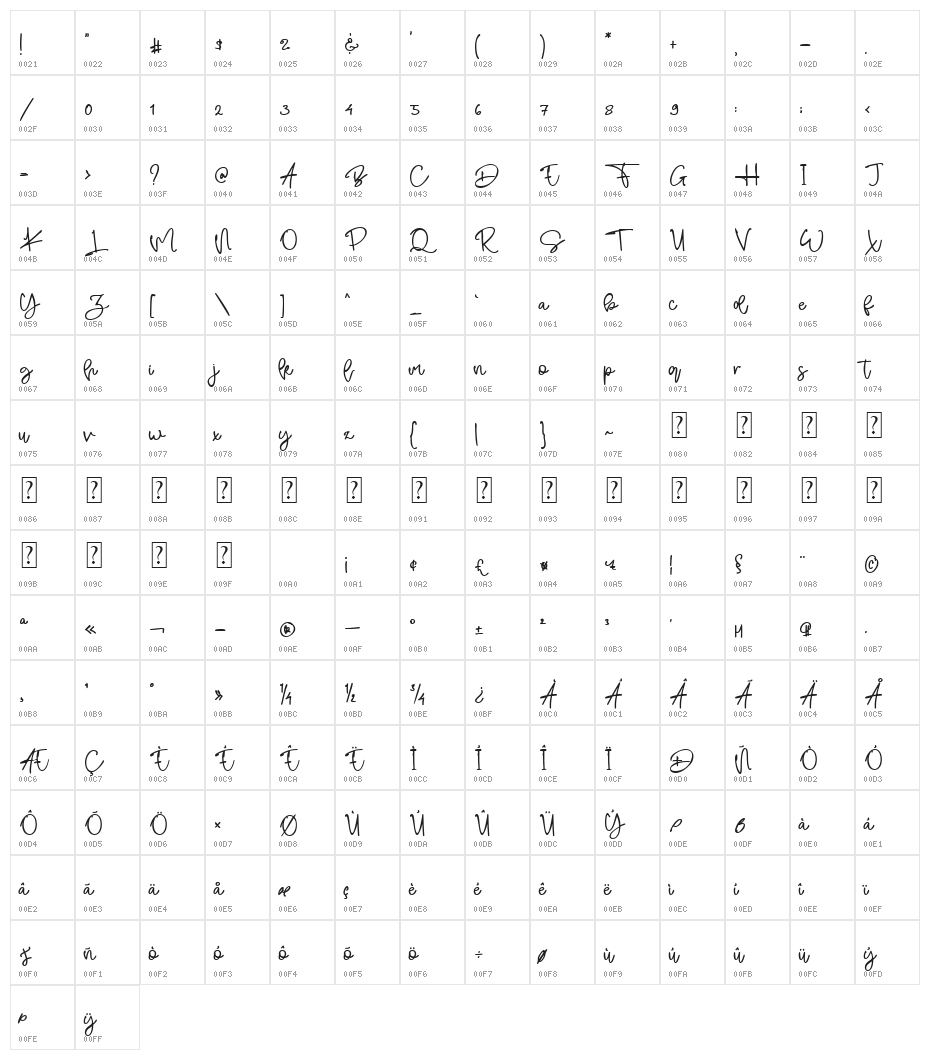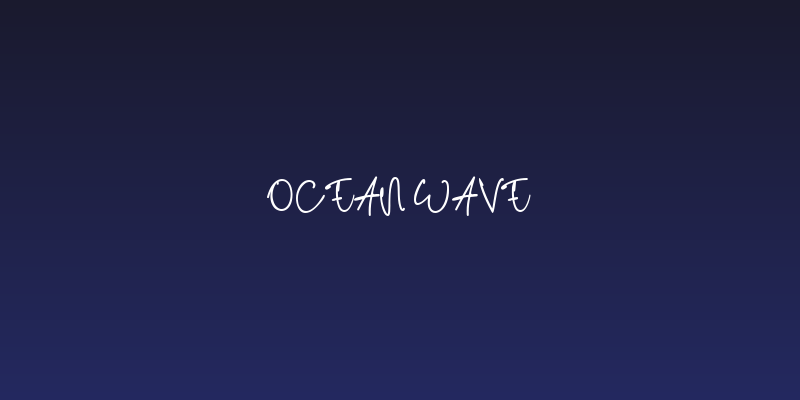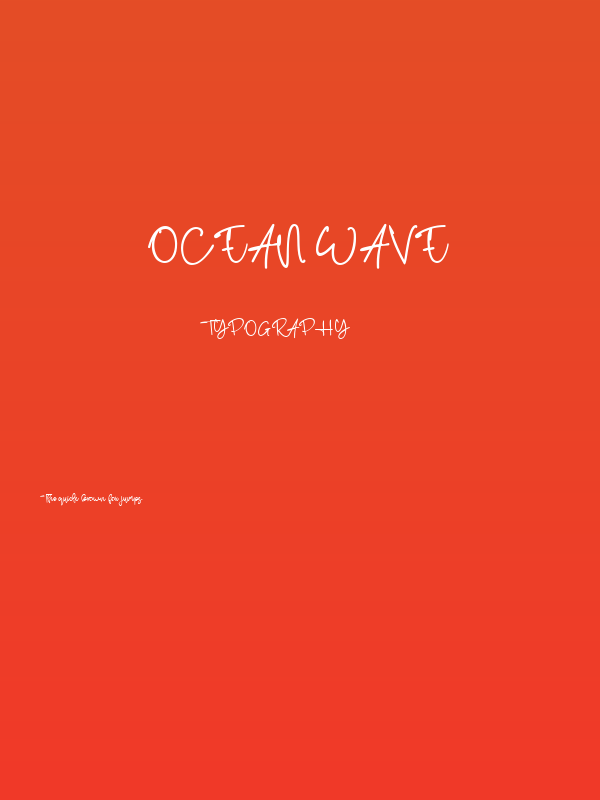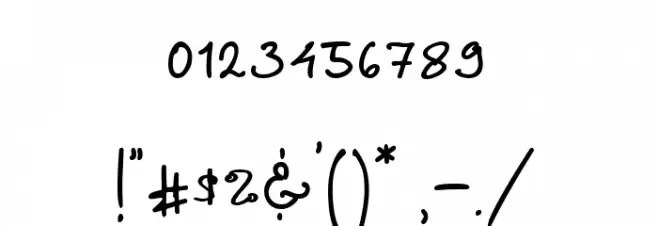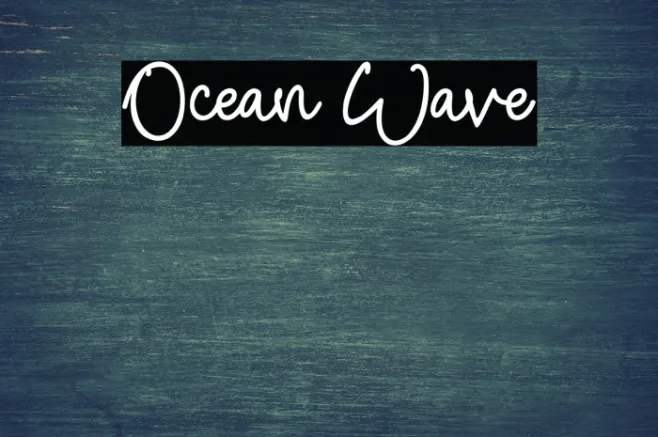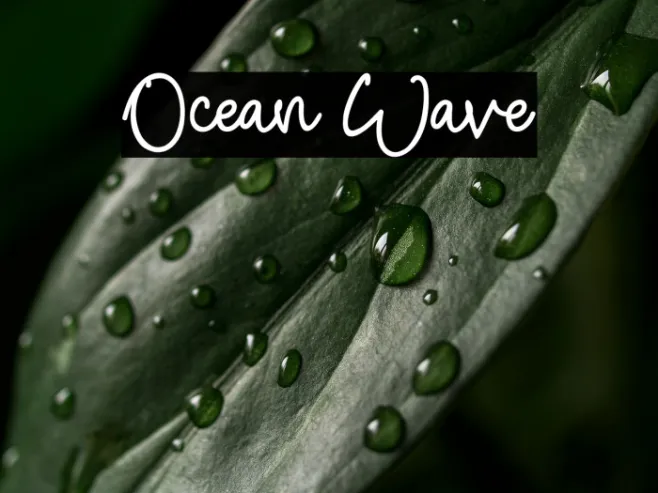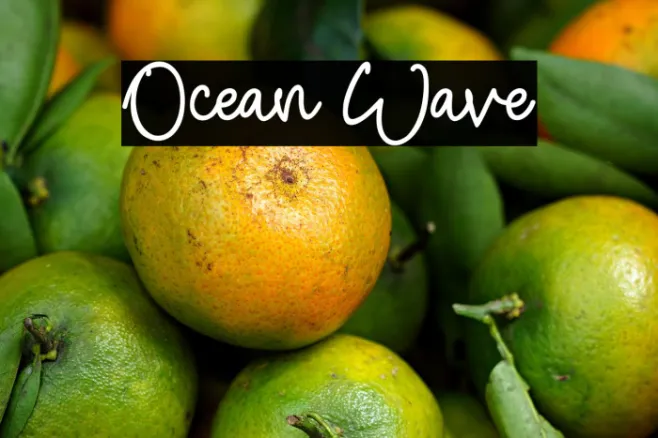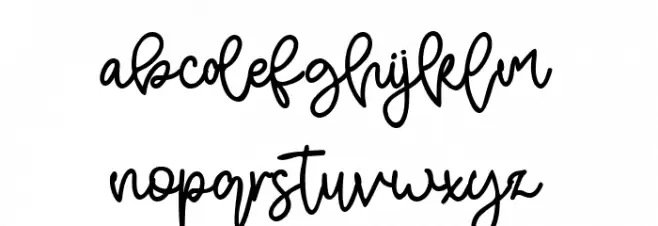
Ocean Wave Font
Ocean Wave Description
This font exudes a playful and dynamic energy, characterized by its fluid, handwritten style. The letters are crafted with a sense of movement, reminiscent of ocean waves, giving it a lively and informal appearance. The uppercase letters are bold and slightly slanted, while the lowercase letters maintain a consistent flow with smooth curves and loops. The numerals and special characters complement the overall style, maintaining the same whimsical and free-spirited design. This font is perfect for projects that require a personal touch or a sense of creativity and spontaneity.
| Use Case | Logos, Headlines, Creative projects |
| Proposed Projects | Ideal for greeting cards, invitations, personal branding, and creative projects that require a whimsical touch. |